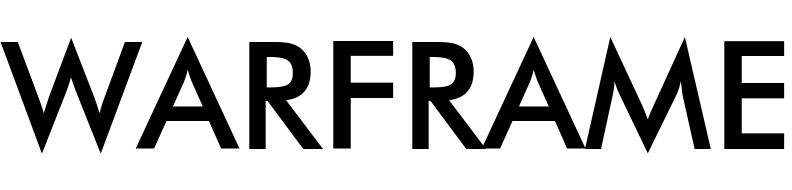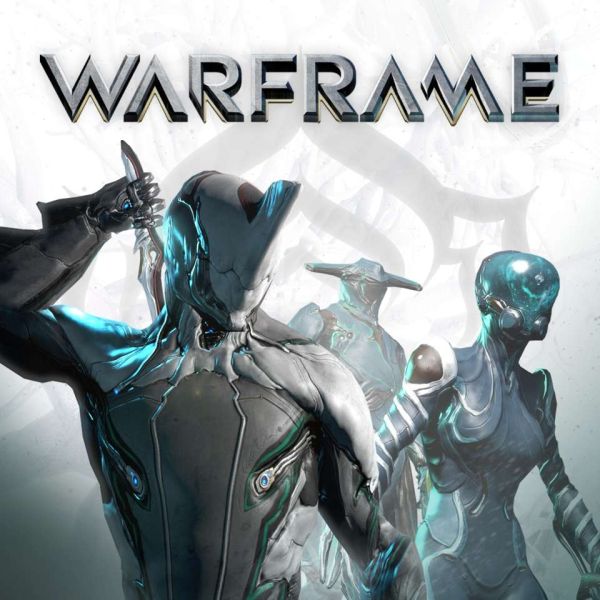
Warframe Font
Fonts in UseWarframe is a free-to-play cooperative third-person shooter video game. Players control ancient warriors who are part of a technologically advanced race called the Tenno, who use their powerful Warframes to battle enemies throughout the galaxy.
It's likely that the Warframe logo was designed specifically for the game, possibly taking inspiration from the geometric sans-serif typeface Futura Medium. This commercial font can be further explored here.